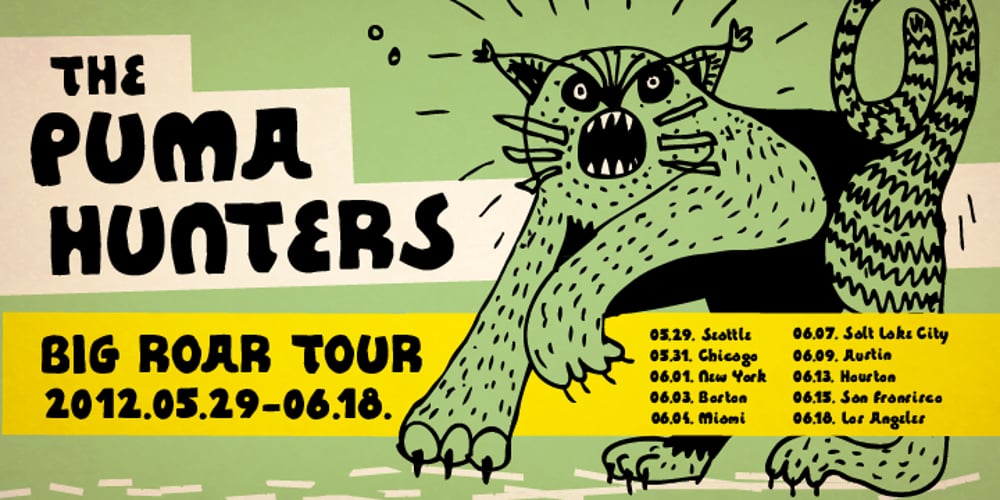
Black Puma Font Family was designed by Gergely Soós and published by Gergely Soós. Black Puma contains 1 styles and family package options. The Black Puma typeface was inspired by the rock beats and the honest spirit of today’s indie music scene. Just as evolving garage bands’, Black Puma’s strength lies in its fresh and brave approach: to playfully experiment and proudly take its imperfections as long as they are needed to stay real and honest. Black Puma’s aim is to entertain, while expressing a strong human touch through its handmade and creatively assembled characters. Black Puma’s varying rounded and edgy shapes create a vibrating yet coherent visual, which carries a positive, playful atmosphere. Its irregularities and extra bold characters empower Black Puma to have great and touching visual impact, which make it stand out of the mass flow of information delivered in the information society we live today. Black Puma font – with its 370 glyphs – includes all the accented characters of the Latin alphabet, and also comes with a couple of alternate characters (stylistic and contextual) to play around with. And, above all – as mentioned before – it includes its essence: the young spirit. So come, play around and have fun with Black Puma. Use it to create expressive, passionate posters, flyers and art work full of spirit for the awaiting young-minded public. You can find more artwork using Black Puma under the “Gallery” tab above.